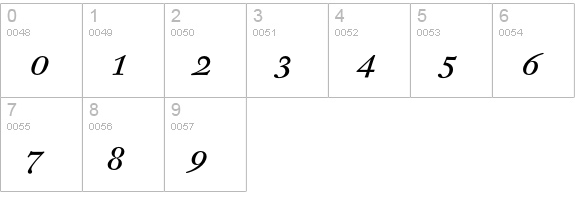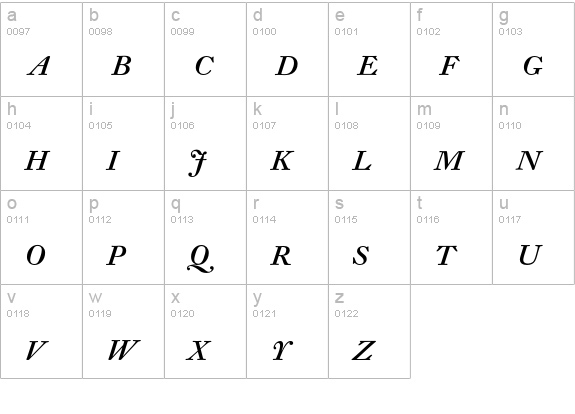
DTLFleischmannDCaps-Italic Font Details
DTLFleischmannDCaps-Italic is a distinctive, italic variant in the DTLFleischmannDCaps typeface family \xE2\x80\x94 well suited to design and typography projects.
DTLFleischmannDCaps-Italic is a stylish and elegant font that exudes sophistication and charm. Its unique italic design adds a touch of flair to any project, making it perfect for branding, invitations, and more. The sleek and modern appearance of this font makes it versatile and suitable for a wide range of design applications. What makes DTLFleischmannDCaps-Italic even more appealing is that it is available for free download at FontsMarket.com. Now, you can elevate your designs with this beautiful font without any cost. Take advantage of this opportunity to enhance your projects with the timeless elegance of DTLFleischmannDCaps-Italic. Download it today and let your creativity soar!